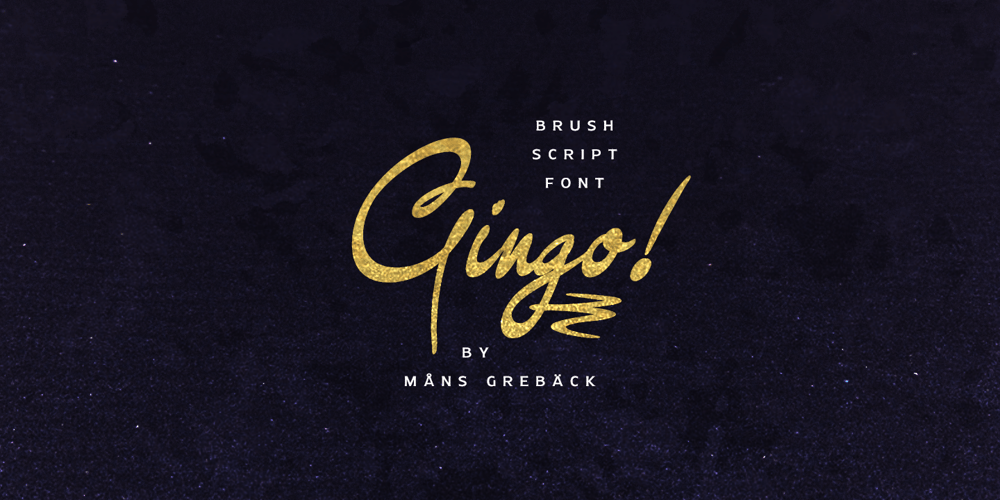
Gingo
Gingo font
Gingo Font Family was designed by Måns Grebäck and published by Mans Greback. Gingo contains 3 styles and family package options. Gingo is a wild brush script. The typeface was drawn and created by Måns Grebäck between 2018 and 2020.Its thick strokes are inspired by mid-century advertising, is full of spirit and progressiveness.The handwritten family consists of three weights: Gingo Thin, Gingo Medium and Gingo Bold. Its multiple alternate alphabets gives the font a true handwritten feeling. Use it for a logotype, a greeting card or as a headline. The font contains all characters you’ll ever need, including all punctuation and numbers. It has an extensive lingual support, covering all European Latin-based scripts.